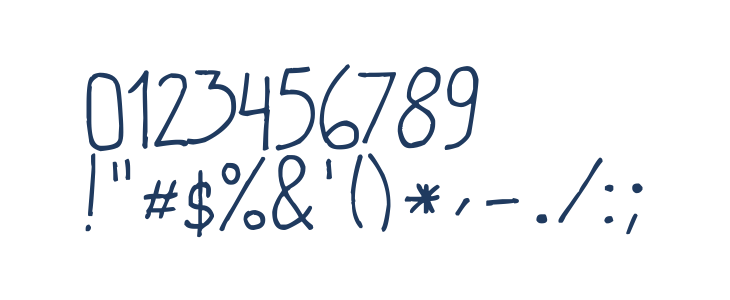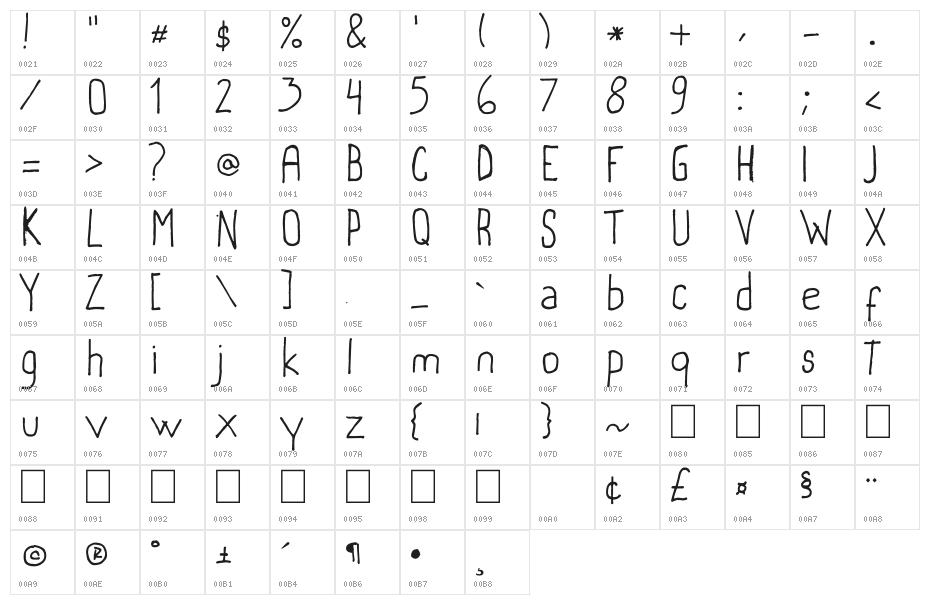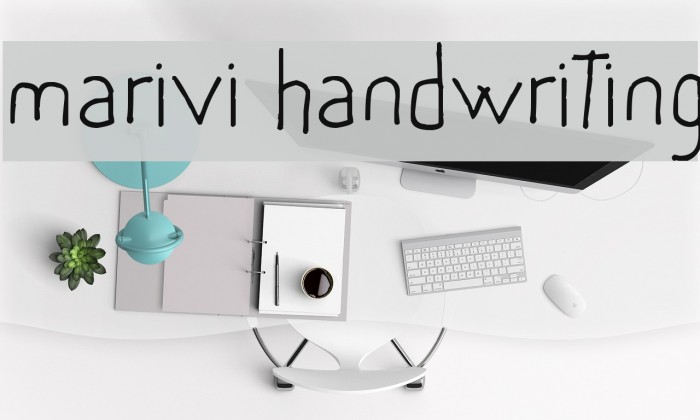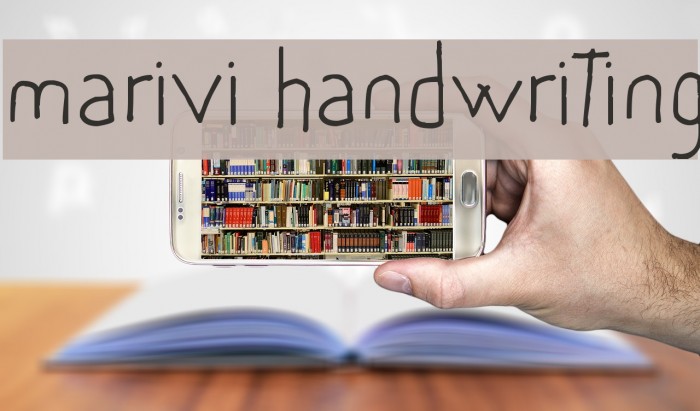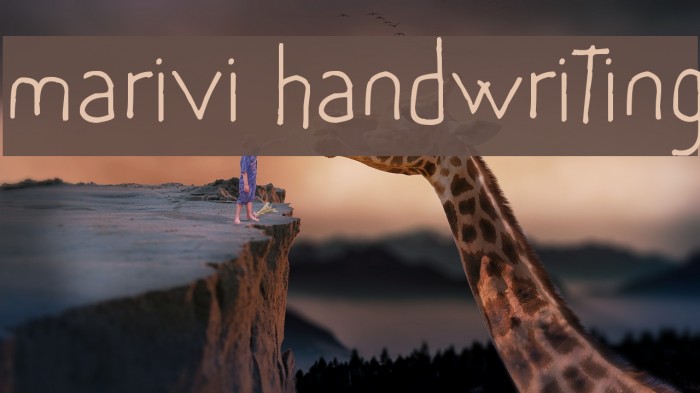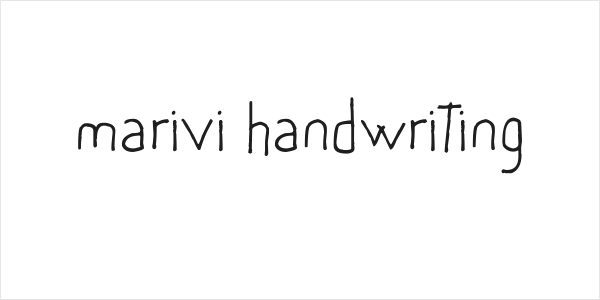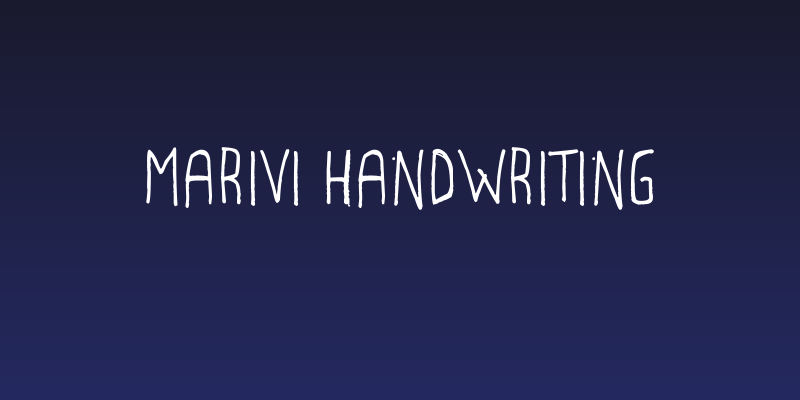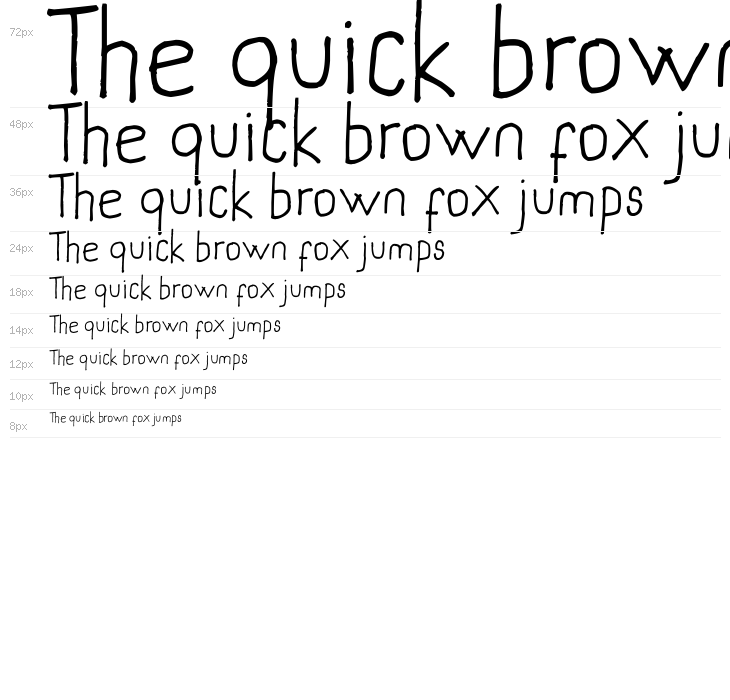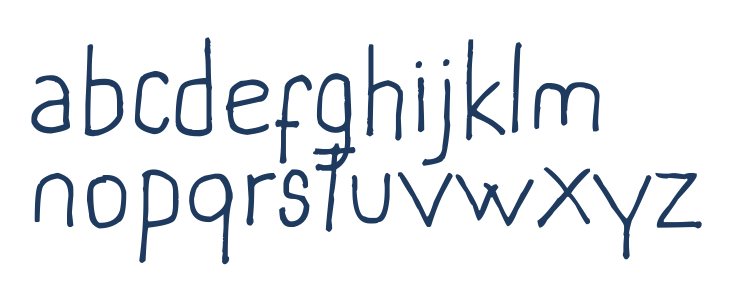
marivi handwriting Font
marivi handwriting Description
This font features a playful and casual handwritten style, characterized by its uneven strokes and organic flow. The letters are tall and narrow, with a slightly irregular baseline that adds to its informal charm. The uppercase and lowercase letters maintain a consistent style, with rounded edges and a whimsical touch. Numbers and special characters follow the same aesthetic, making the font versatile for various creative projects. The overall appearance is friendly and approachable, suitable for designs that aim to convey a personal or artistic feel.